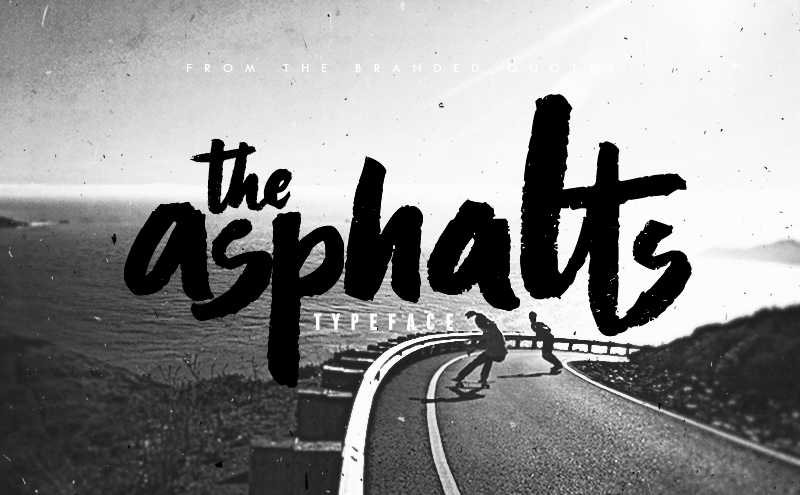
Preview and download Asphalts Font. Created by The Branded Quotes in Script Brush styles with Free for personal use license.
Personal Use Only. You can purchase the license for Commercial Use through here: https://sellfy.com/p/sQMr/ About the font: A mixture of rough and heavy brush strokes with a bit of easy-go-lucky script feel. Inspired by the steez of downhill passion that will uplift your brand name, logotype, identity, shirt design and presentations. Think of a word and type it using the Asphalts Brush, then put the word "brand" or "SKATE CO." under it in Sans Serif form. You will admire the uniqueness of this font! Asphalts Brush - Created in Lowercase forms. Try typing its Uppercase characters for the alternates. Asphalts Display - Built in Capitals and composed of most Punctuation Marks to support the brush type. Enjoy! |